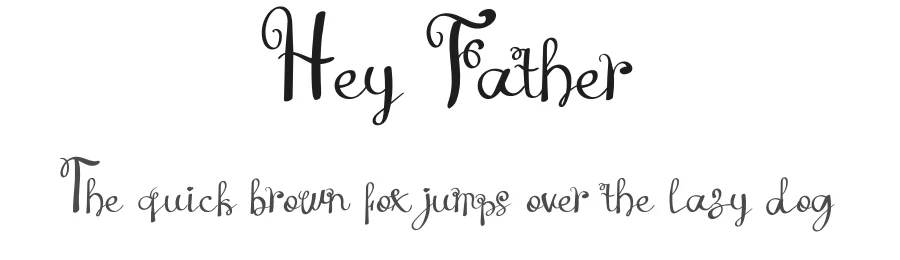
About Amagh Font
Amagh is a script & handwritten font designed by Digital Typeface Studio. It includes 106 glyphs, a regular weight, TTF (TrueType) format, and 89 languages. Amagh is free to download; check the license details on this page before commercial use. Script & handwritten fonts like Amagh work best for wedding invitations, greeting cards, signatures, and elegant branding.
Amagh Font is a script font that shines as a display or heading face. Pair it with a clean sans-serif or serif font for body text β the contrast creates a clear hierarchy while the two styles stay balanced and easy to read.